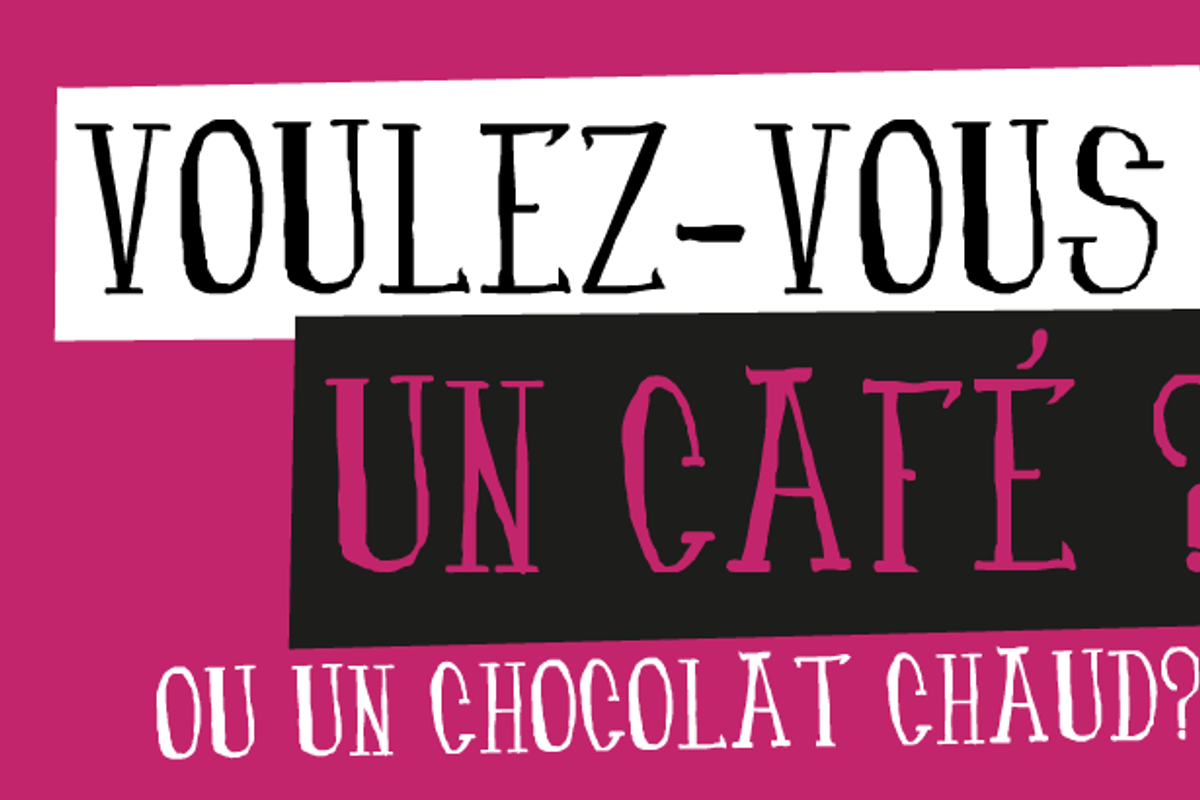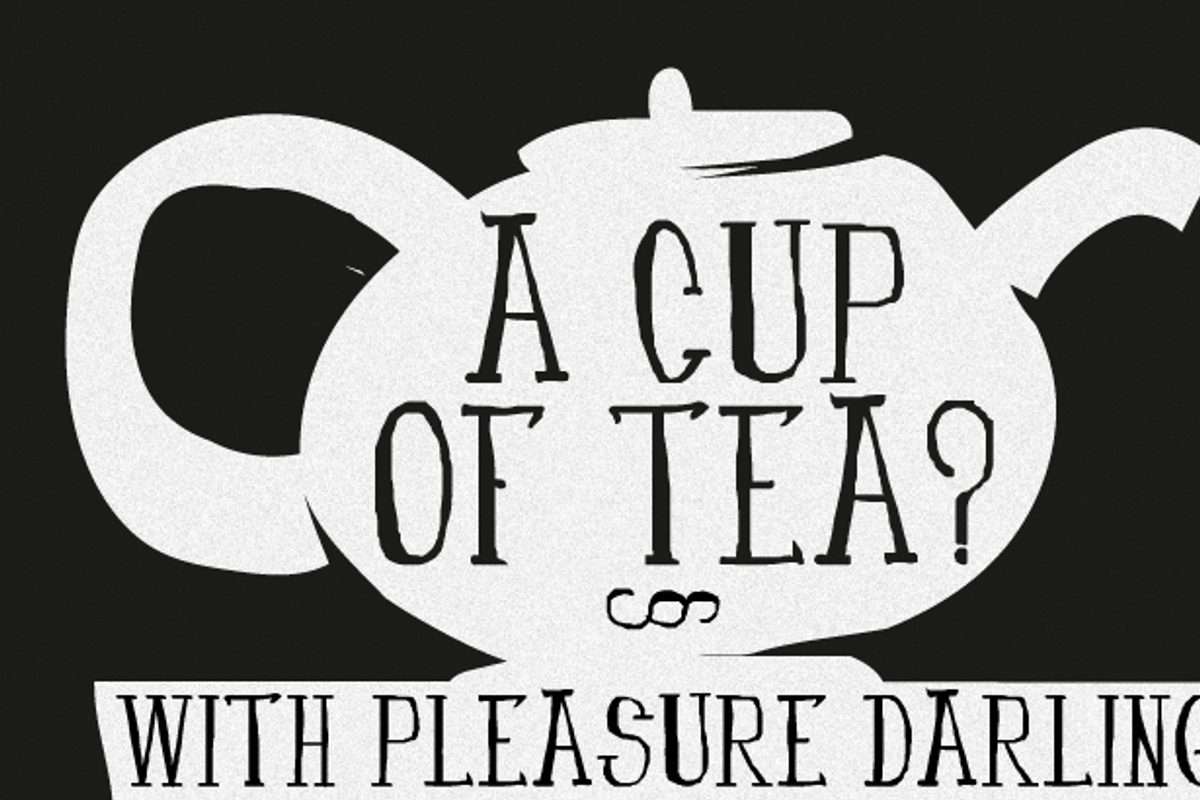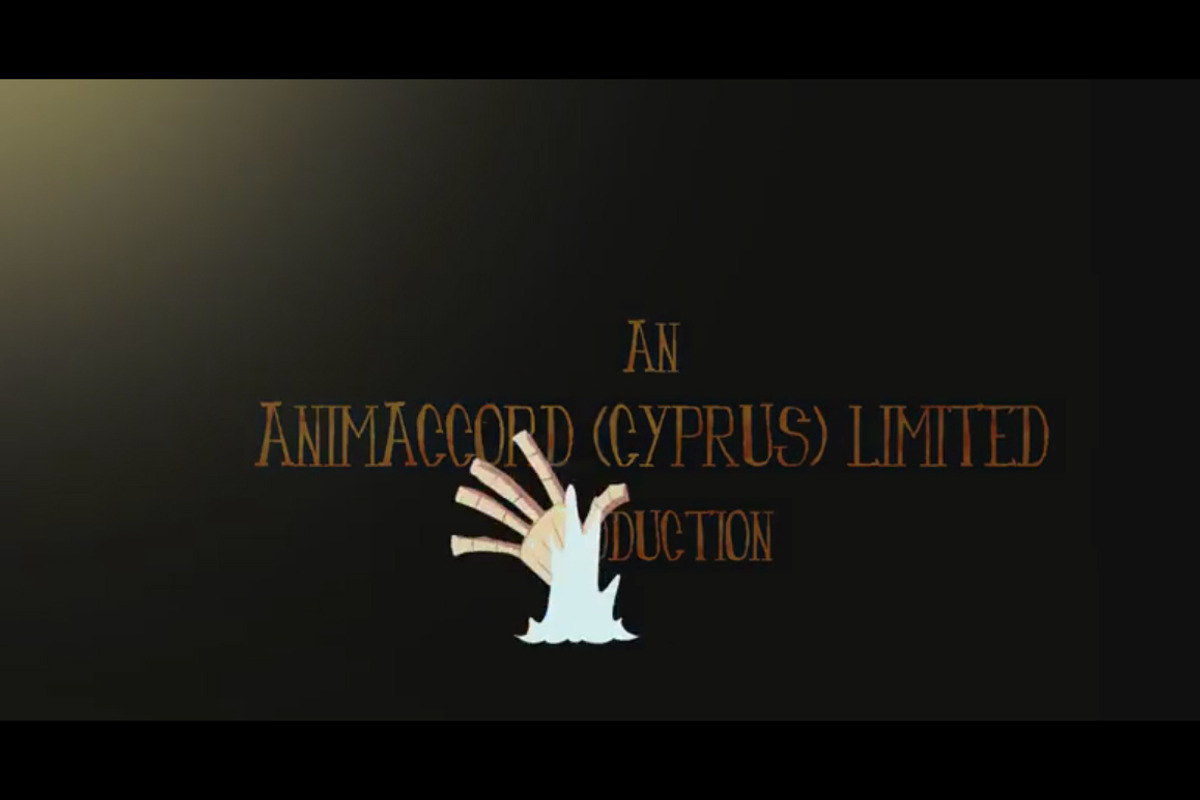
Fanfarone (font)
Fanfarone (font) by La Boite Graphique is a font selected for branding, posters, packaging, typography.
Why Fanfarone (font) is worth a look
Fanfarone (font) by La Boite Graphique fits naturally into Branding, posters, packaging, typography.